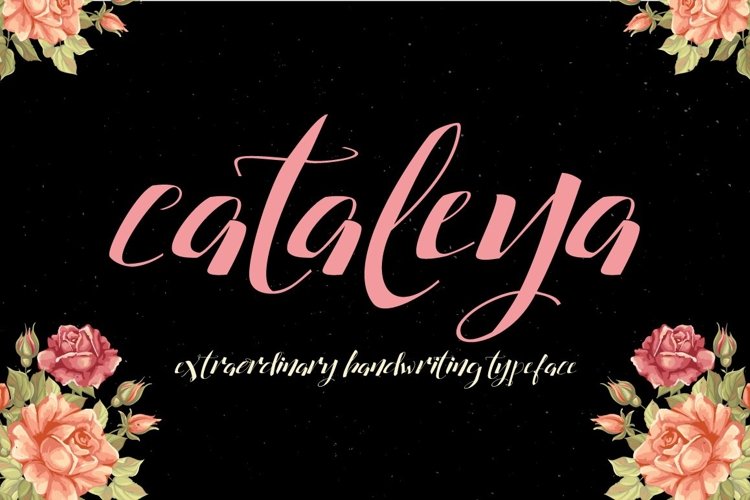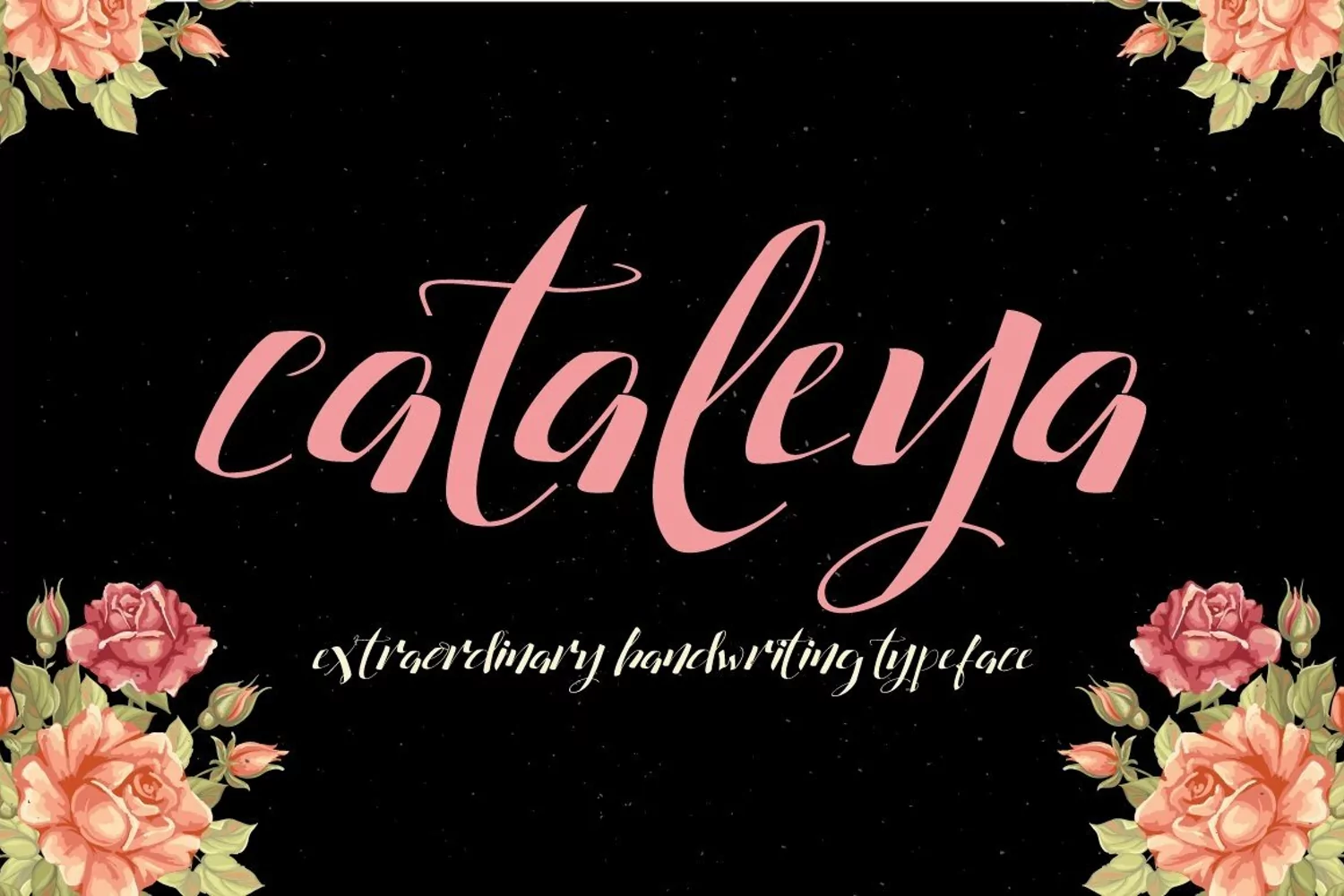
Introducing "Cataleya Handwriting Typeface" Can be used for various purposes namely branding, headings, logos, wedding invitations, t-shirts, letterheads, labels, news, posters, badges etc. Ohh.. forget to say... You may taste my free font from my behance profile as follow: https://www.behance.net/fontgraphicland Product Content: Cataleya.otf Cataleya.ttf Webfont Features: Uppercase Lowercase Number & Punctuations Use a program that supports OpenType features such as Adobe Illustrator CS, Adobe Indesign & CorelDraw X6-X7 to access the full features of this typeface. How-to pdf included in the package. Feel free to contact me for additional supports.